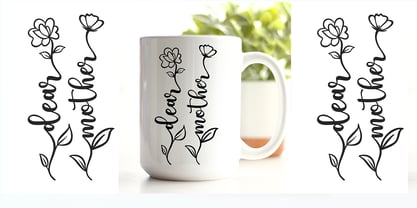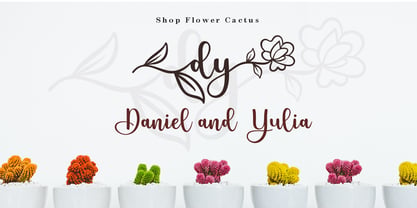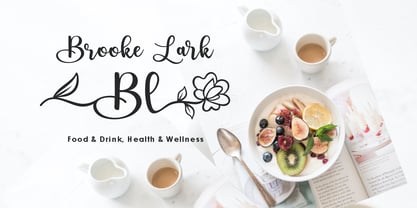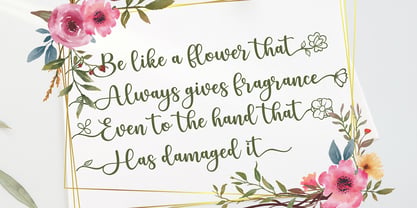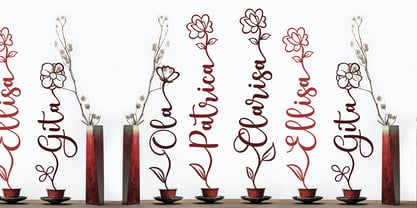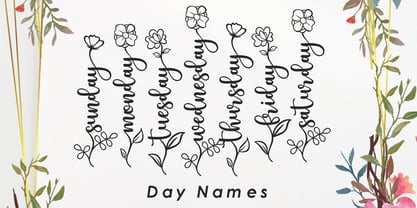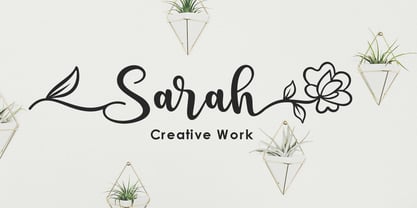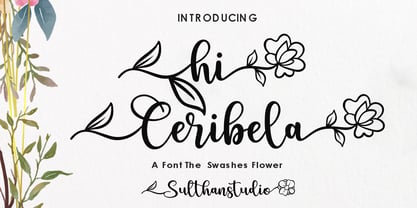
Hi ceribela
by Sulthan Studio
The Hi ceribela Font Family was designed by Nasrullah and published by Sulthan Studio. Hi ceribela contains 1 styles. More about this family
Hi Ceribela is a handwritten decorative font adorned with leaves and flowers Cute and stylish, add it to any of your creative projects, and it will make them come alive!
Designers: Nasrullah
Foundry: Sulthan Studio